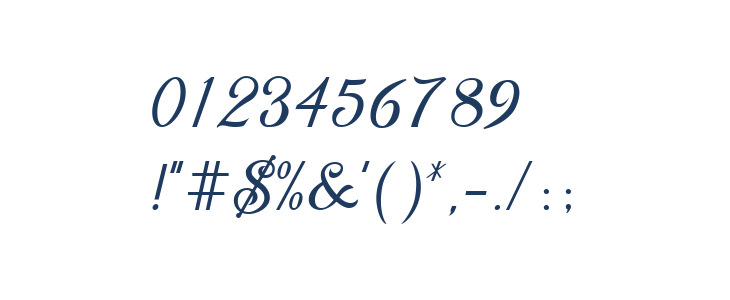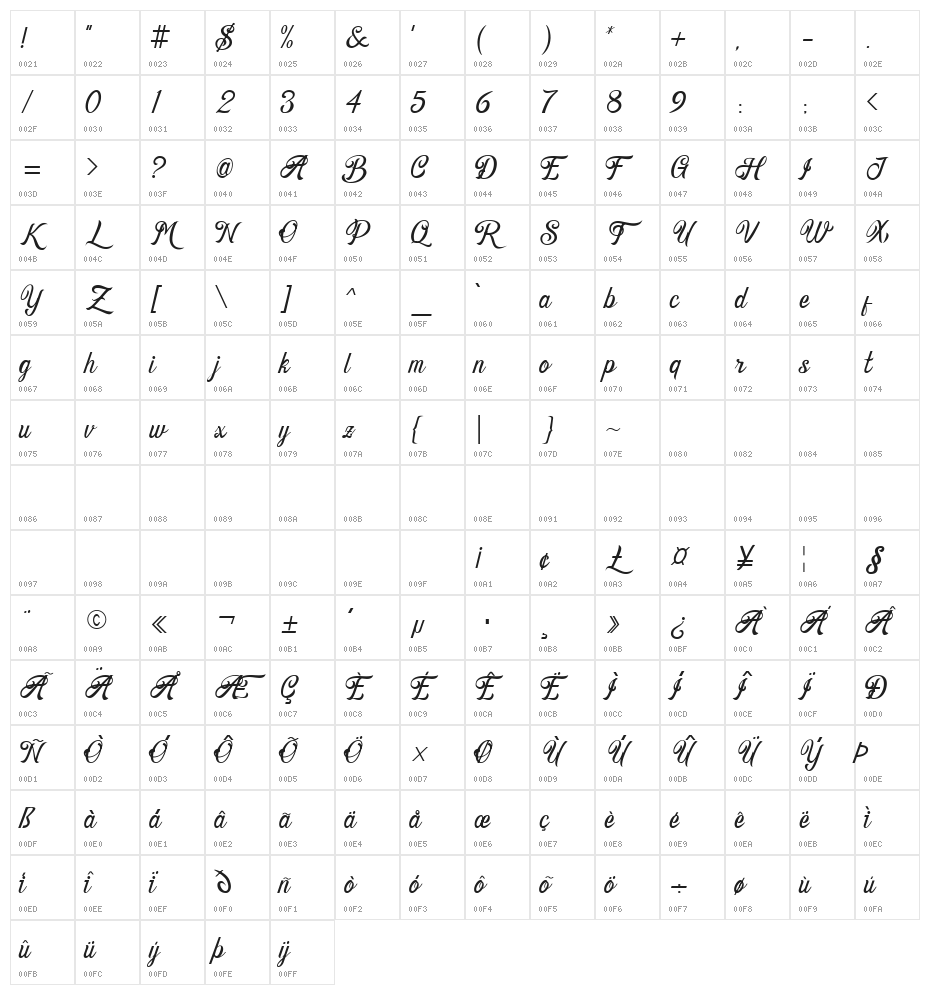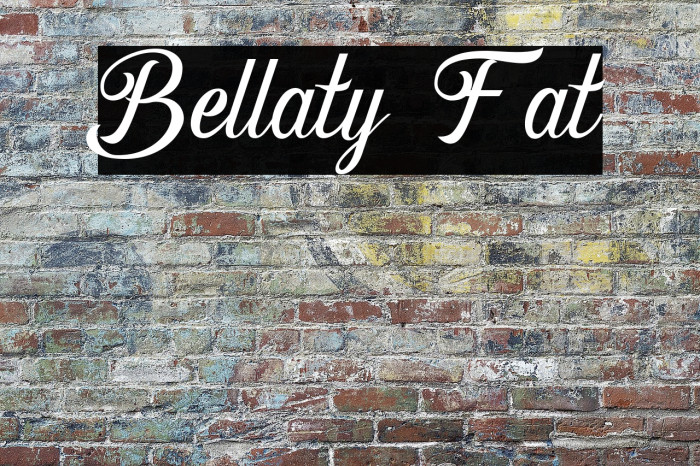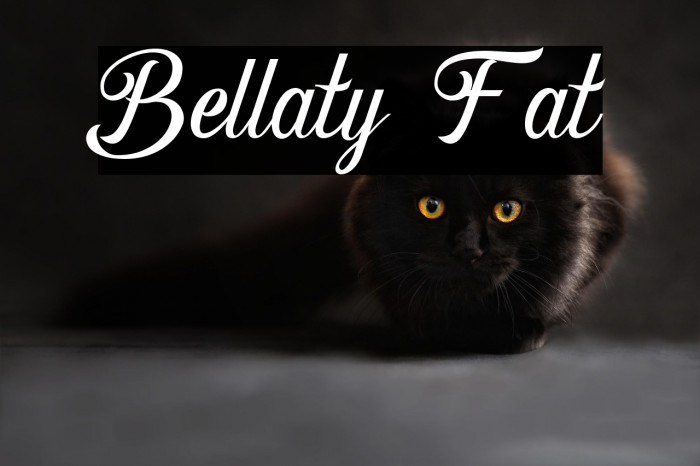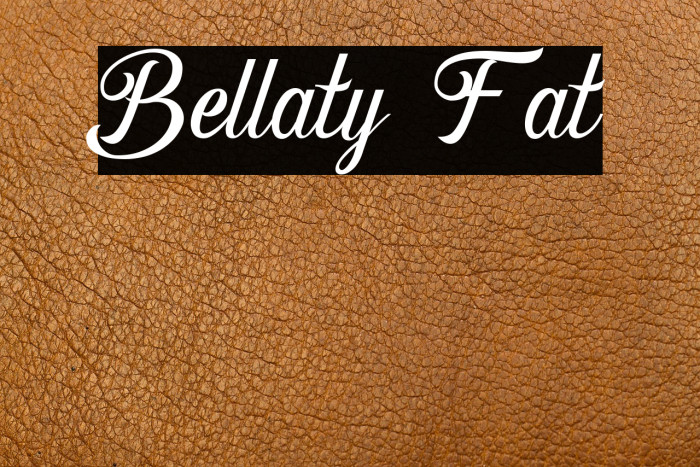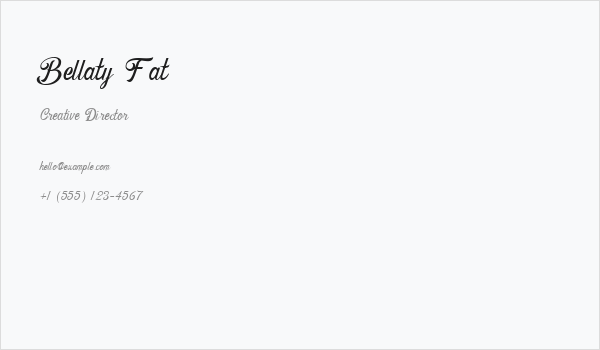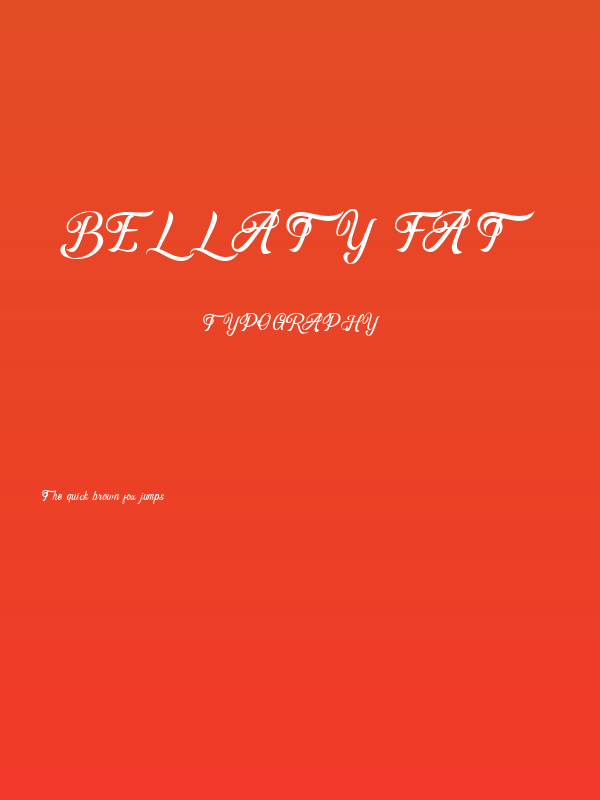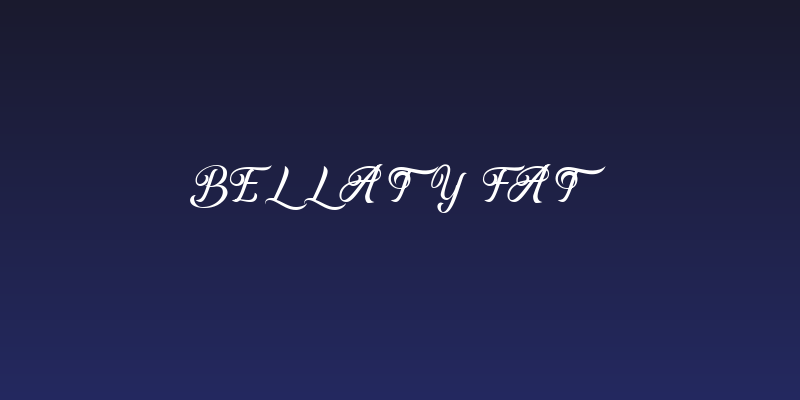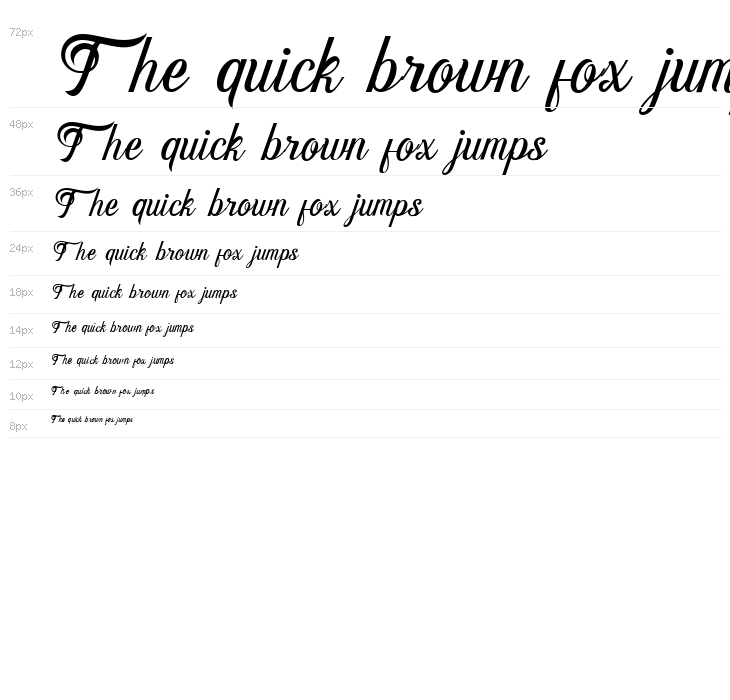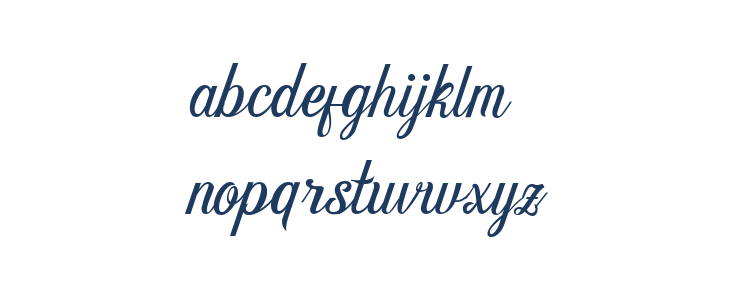
Bellaty Fat Font
Bellaty Fat Description
This font exudes elegance and sophistication with its flowing, cursive style. The uppercase letters are ornate and feature elaborate loops and swirls, giving them a formal and decorative appearance. The lowercase letters maintain a consistent slant and are designed with smooth, flowing lines that enhance readability while retaining a stylish flair. The numerals are bold and slightly italicized, complementing the overall script style. Special characters are crafted with the same attention to detail, ensuring a cohesive look across all glyphs. This font is perfect for projects that require a touch of class and elegance.
| Use Case | Headlines, Invitations, Branding |
| Proposed Projects | Ideal for wedding invitations, luxury branding, elegant stationery, and decorative headlines. |